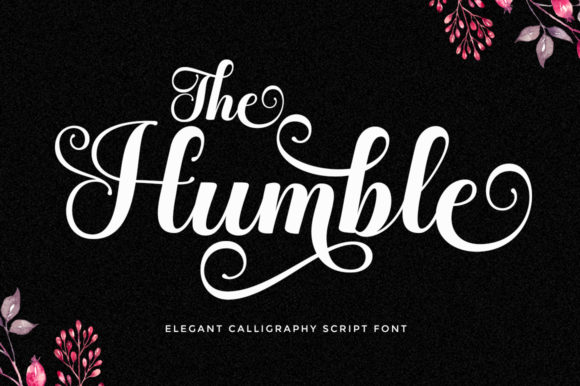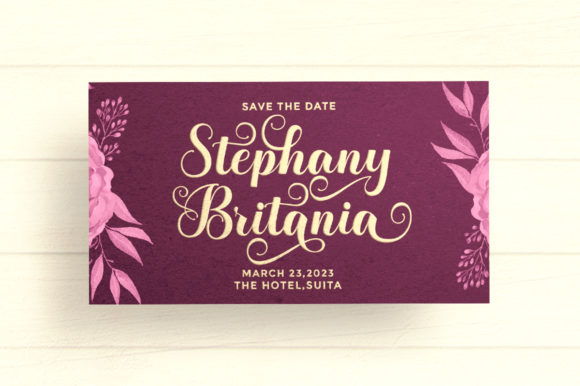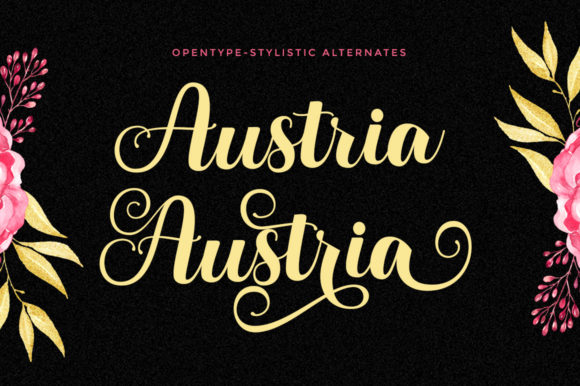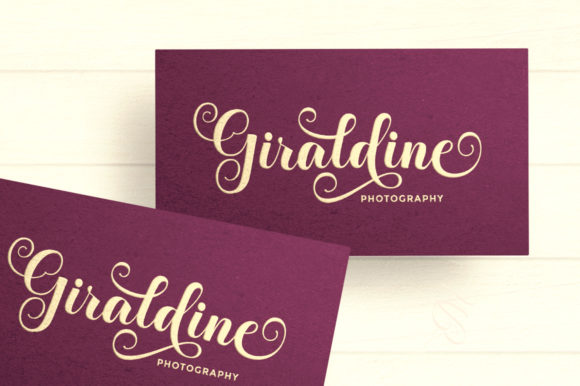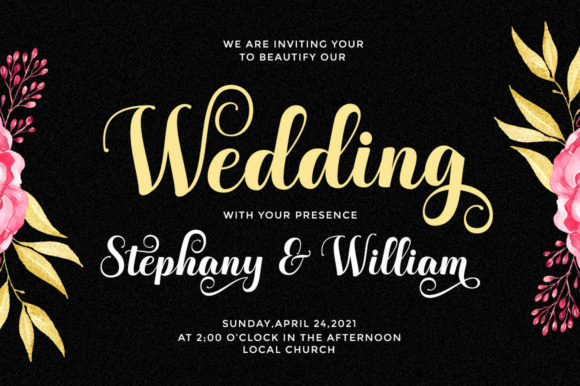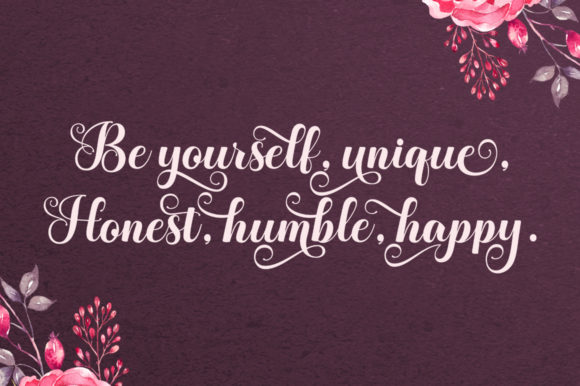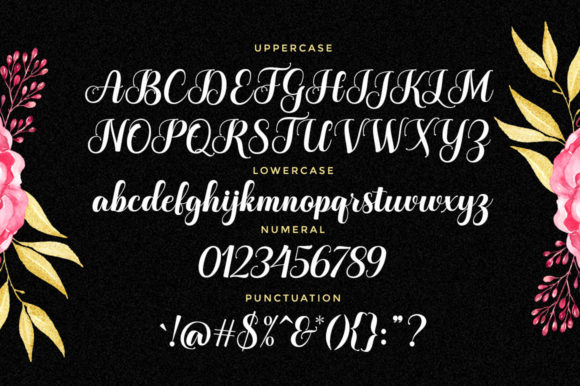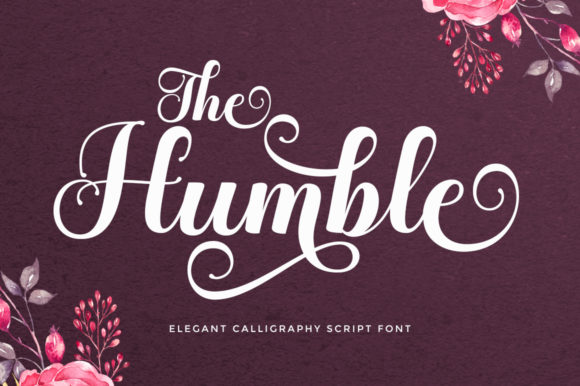
The Humble Font
About The Humble Font
The Humble is a delicate and elegant handwritten font. Its distinct and well rounded letters make this font a masterpiece. Fall in love with its incredibly versatile style and use it to create spectacular designs!